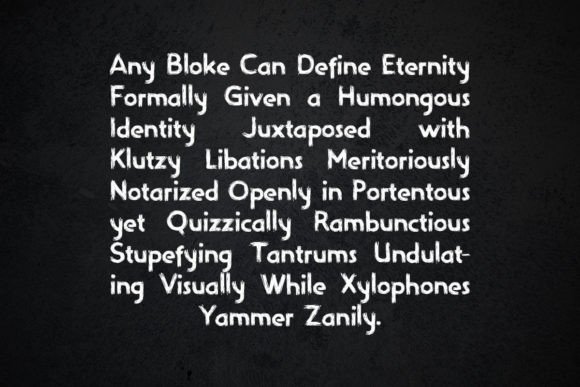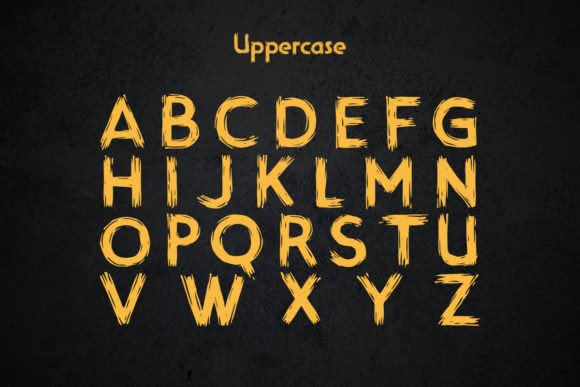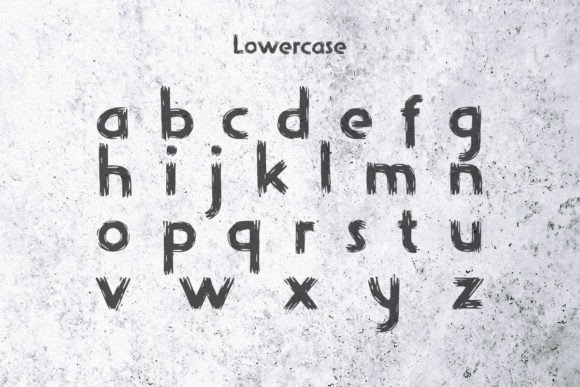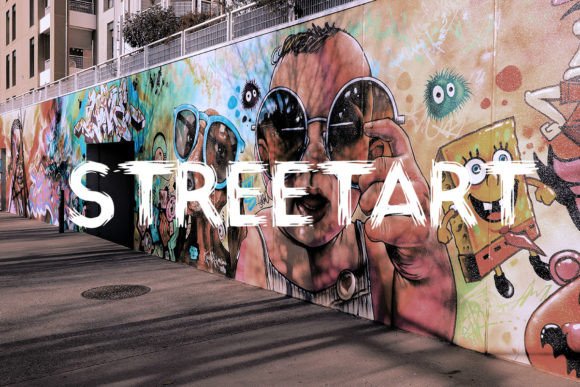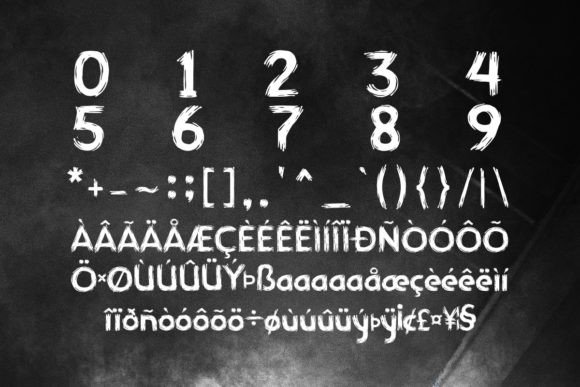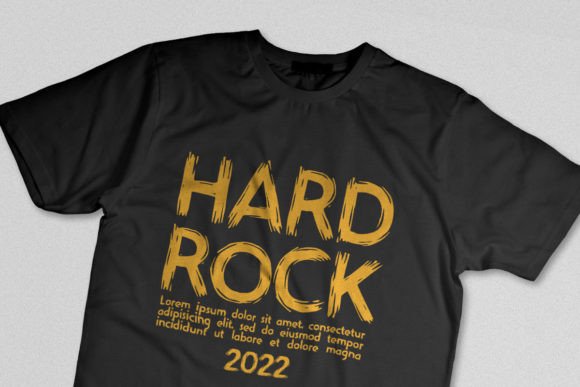
Introduction to Crown Breaker Font
Crown Breaker is a brush display font.
An authentic dry ink brush touches every character of this font The realistic dry ink brush effects will be suitable for any design such as poster band, clothing design, product design, packaging, label design, film/movie title, quote, etc.
Key Features of Crown Breaker Font